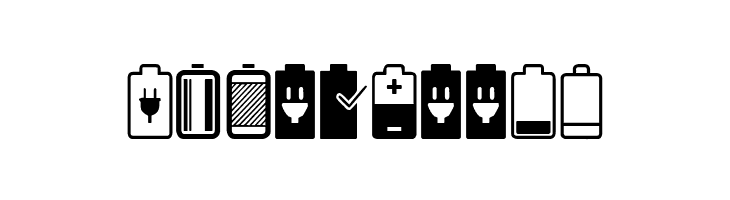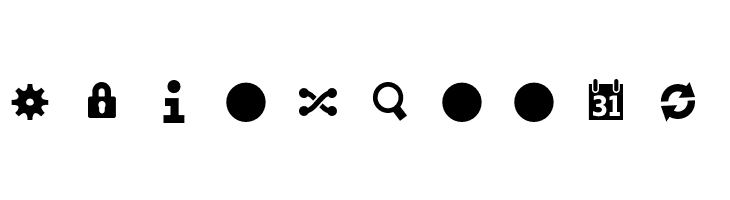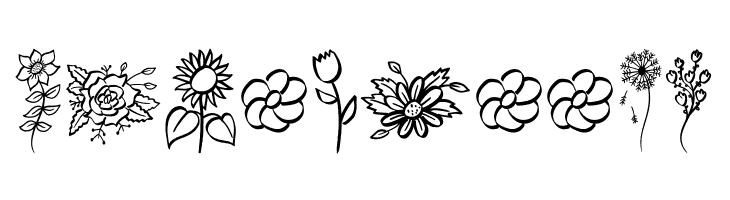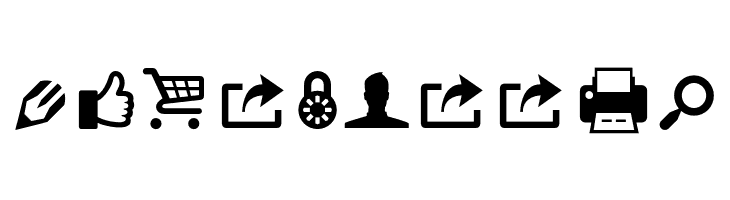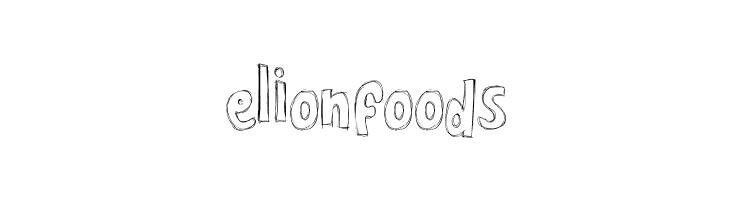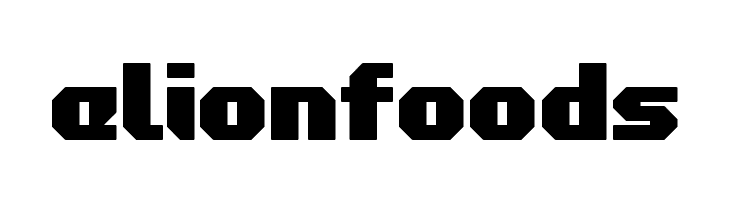
Bold, geometric battery icons with clear, modern styling.
Bold, geometric icon set with high legibility and uniform style.
Minimal, geometric icon set for UI elements.
Hand-drawn decorative doodle font with floral and whimsical motifs.
Hand-drawn floral illustrations with a whimsical, decorative style.
Bold, geometric icon set with high clarity and minimal detail.
A playful, hand-drawn sketch font with a whimsical and artistic style.
A playful, handwritten font with smooth lines and a casual style.
Bold, geometric pictograms with rounded corners and high legibility.
A bold, geometric font with blocky, angular letterforms.